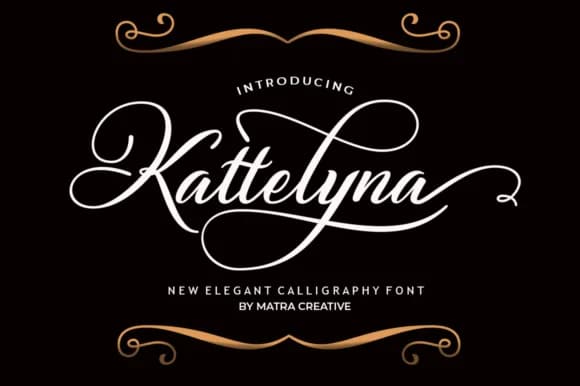
1 / 9About Kattelyna Script Font
Kattelyna Script by Matra Creative is a formal script font that delivers genuine elegance without pretension. This carefully crafted typeface balances ornamental flourishes with legibility, making it suitable for a wide range of professional and creative projects that demand sophistication and polish.
The font excels in specialized applications where refined letterforms matter most. Consider using Kattelyna Script for upscale wedding invitation suites that require intricate typography, restaurant menu designs that convey premium dining experiences, boutique product label design, and luxury event stationery. The flowing, connected strokes create visual warmth while the formal structure maintains professionalism. It performs equally well in magazine spreads, greeting card layouts, and social media graphics for brands cultivating a high-end aesthetic.
What makes Kattelyna Script particularly valuable is its versatility across both digital and print mediums. The consistent, well-crafted letterforms ensure clarity whether the typeface appears at large display sizes or smaller body text applications. Designers working on sophisticated brand identity projects will appreciate the distinctive character this script brings to their work. Discover Kattelyna Script Font on Creative Fabrica and bring refined typography to your next design project.
Kattelyna Script Font is a script font that shines as a display or heading face. Pair it with a clean sans-serif or serif font for body text β the contrast creates a clear hierarchy while the two styles stay balanced and easy to read.